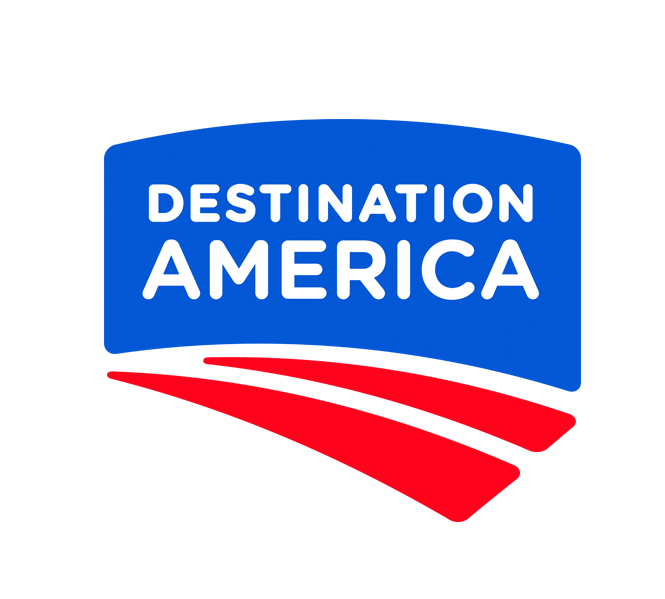
Destination America Font
EntertainmentDestination America is an American pay television channel that features programming focused on the culture and heritage of the United States, with a particular emphasis on blue-collar and rural communities.
Destination America features a new logo, introduced by LA-based agency Ferroconcrete three years after its launch. The updated design boasts a brighter, cleaner appearance, with a rounded and friendly font named Gotham Rounded Bold replacing the previous neutral sans serif font similar to District Black , designed by GarageFonts.